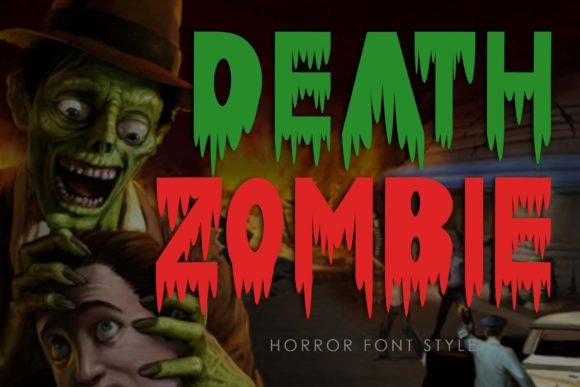
Introducing the Death Zombie Font: A Spine-Chilling Addition to Your Design Arsenal
The world of typography is vast and varied, with fonts ranging from elegant and sophisticated to bold and attention-grabbing. For those looking to add a touch of horror to their designs, the “Death Zombie” font is an excellent choice. This unique horror font is designed to send shivers down the spine, making it perfect for Halloween events, horror movies, comics, and other spooky-themed projects.
Key Features of the Death Zombie Font
- Uppercase and Lowercase Letters: The Death Zombie font includes both uppercase and lowercase letters, allowing you to create a wide range of designs, from bold headlines to creepy captions.
- Numerals and Punctuations: The font also includes numerals and punctuations, making it a versatile choice for various design projects.
- Multilingual Support: With multilingual support, you can use the Death Zombie font to create designs for a global audience.
10 Creative Ways to Use the Death Zombie Font
- Halloween Events: Use the Death Zombie font to create spooky posters, flyers, and invitations for Halloween parties and events.
- Horror Movies and Comics: Add a touch of horror to your movie or comic book titles, posters, and promotional materials with the Death Zombie font.
- Christmas and Holiday-themed Designs: Who says horror fonts are only for Halloween? Use the Death Zombie font to create creepy Christmas cards, posters, or decorations.
- Cartoons and Animations: The Death Zombie font is perfect for creating cartoon-style characters, titles, and dialogue bubbles.
- Posters and Banners: Create eye-catching posters and banners for horror-themed events, concerts, or movie premieres.
- Branding and Logos: Use the Death Zombie font to create a unique and memorable logo for your horror-themed business or product.
- Stickers and Prints: Design creepy stickers, prints, or decals using the Death Zombie font.
- Social Media Graphics: Create engaging social media graphics, such as Facebook posts, Instagram stories, or Twitter headers, with the Death Zombie font.
- Video Games: Use the Death Zombie font to create titles, menus, or in-game text for horror-themed video games.
- Book Covers: Design a creepy book cover for your horror novel or comic book using the Death Zombie font.
Design Tips for Using the Death Zombie Font
To get the most out of the Death Zombie font, here are some design tips to keep in mind:
- Experiment with Colors: The Death Zombie font looks great in bold, bright colors, but you can also experiment with darker, muted tones to create a creepier effect.
- Play with Texture: Add texture to your design by incorporating rough, distressed, or worn effects to give your text a more horror-themed look.
- Mix and Match Fonts: Combine the Death Zombie font with other fonts to create a unique and interesting contrast.
The Death Zombie font is a unique and versatile horror font that’s perfect for adding a touch of spookiness to your designs. With its wide range of features, including uppercase and lowercase letters, numerals, punctuations, and multilingual support, this font is suitable for various design projects, from Halloween events to horror movies and comics. By following the design tips outlined above, you can create creepy and engaging designs that will leave a lasting impression on your audience.